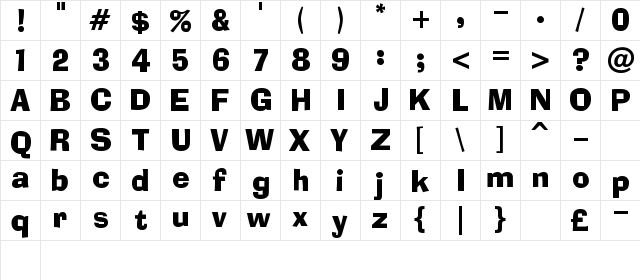
Dolor Regular
Design Context for Dolor Typeface
Dolor takes a measured approach to typography — its balanced proportions and neutral character make it a reliable workhorse for both digital and print work.